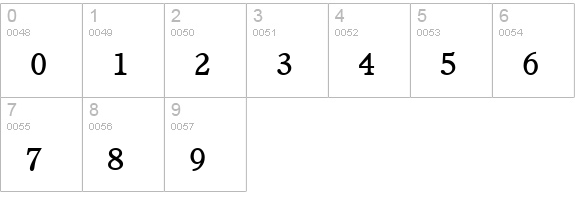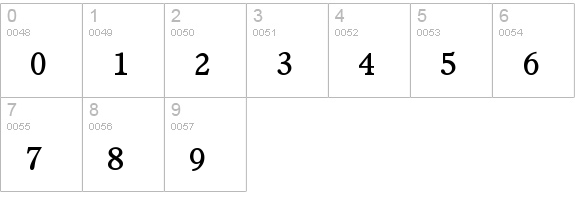
C851-Roman-Smc-Regular Font Details
C851-Roman-Smc-Regular is the standard, neutral variant in the C851 typeface family \xE2\x80\x94 well suited to general body text, paragraphs, and standard typographic work.
C851-Roman-Smc-Regular is a classic and elegant serif font that exudes timeless sophistication. Its graceful curves and sturdy serifs make it perfect for a wide range of design projects, from branding to editorial design. This font brings a touch of refinement and professionalism to any text it graces. The best part? C851-Roman-Smc-Regular is available for free download at FontsMarket.com. With its high legibility and versatile style, this font is a must-have for any designer looking to add a touch of class to their work. Download C851-Roman-Smc-Regular today and elevate your designs to new heights.